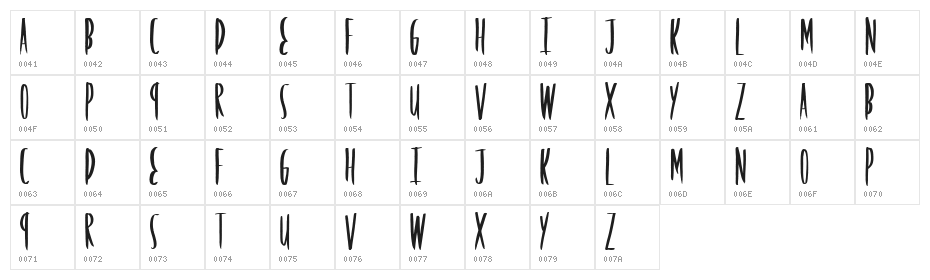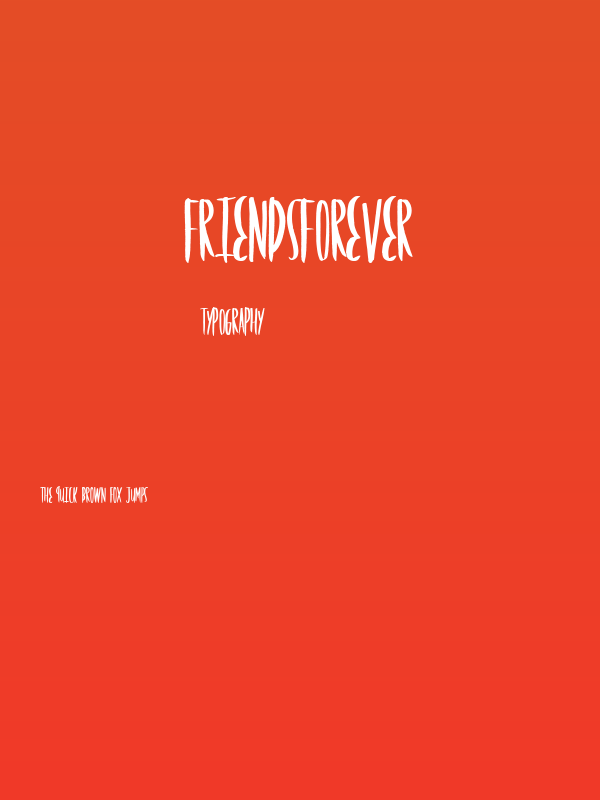
FriendsForever Font
FriendsForever Description
This font features a tall, narrow design with a hand-drawn aesthetic. The characters have a playful and artistic quality, with uneven strokes and a slightly distressed appearance. The uppercase letters are particularly elongated, giving the font a unique and eye-catching look. The lowercase letters maintain the same whimsical style, complementing the uppercase set. The numbers and special characters are consistent with the overall design, making the font versatile for creative projects. Its distinctive style makes it suitable for projects that require a touch of personality and flair.
| Proposed Projects | Ideal for posters, invitations, greeting cards, and creative branding projects. |